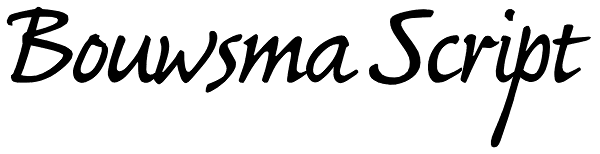
Bouwsma Script
Bouwsma Script, based on Philip Bouwsma's own handwriting, was originally released in 1994 and settled for nothing less than being an instant classic. One of Bouwsma's widely used works in the 1990s, Bouwsma Script finds its home now at Canada Type...